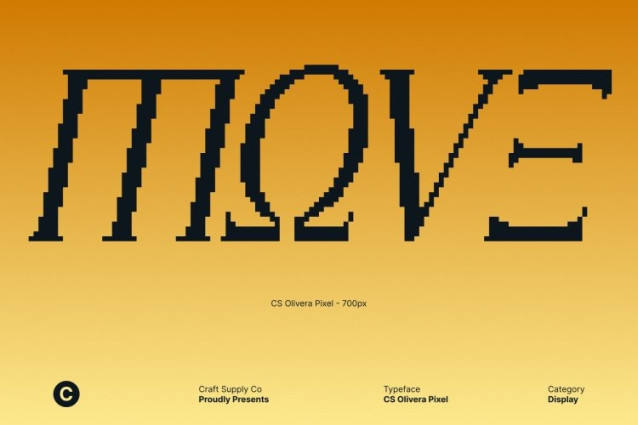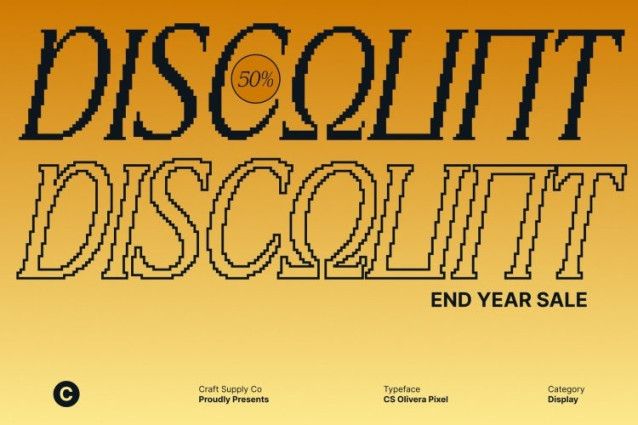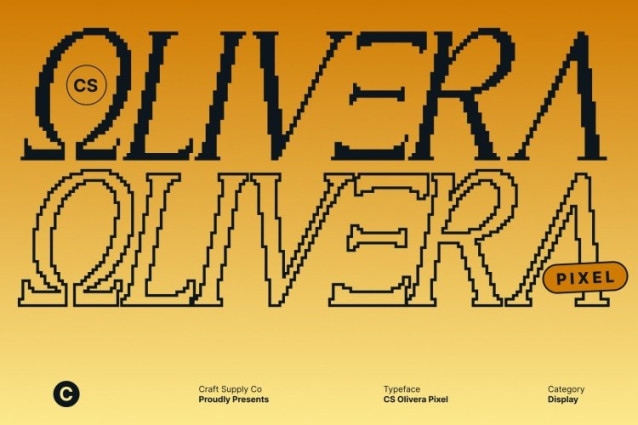
CS Olivera Pixel Font
CS Olivera Pixel Font This transforms the refined Greek-inspired serifs of the original font into sharp, pixel-perfect forms. Each letter preserves the elegance and balance of historical inscriptions while gaining a crisp, blocky digital structure that makes it instantly readable on screens and retro-styled visuals.
Structured Pixel Forms with Historical Character
The font retains its sophisticated serifs and classical proportions, now rendered with precise pixel edges. Subtle nods to ancient Greek letterforms remain visible, creating a perfect fusion of tradition and modern digital aesthetics. This makes ideal for projects that want both historical sophistication and contemporary digital flair.
Versatile for Digital and Print Applications
Whether used for editorial titles, game UI, posters, or branding, adapts effortlessly. Its pixel-style construction ensures visibility on screens, while the historical elegance communicates prestige and refinement, making it perfect for luxury digital campaigns, educational content, and culturally inspired designs.
Timeless, Modern, and Distinctive
By combining classical inspiration with pixel precision, this font bridges eras honoring Greek heritage while embracing the modern, digital world. Its structured forms make every design feel professional, sophisticated, and visually striking, giving your projects a unique voice that stands out in both traditional and digital contexts.